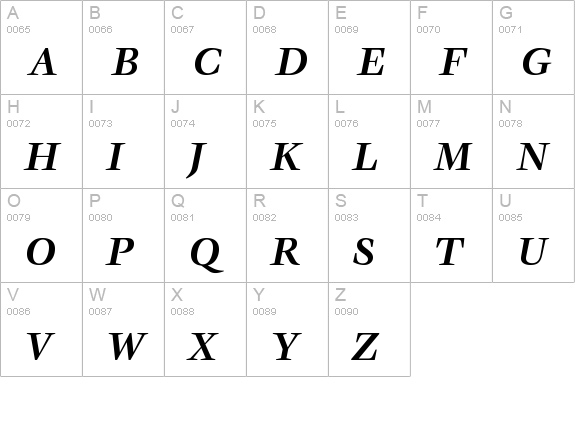
VeljovicEF-BoldItalicOsF Font Details
VeljovicEF-BoldItalicOsF is a captivating and elegant font that adds a touch of sophistication to any design project. Its bold and italicized form exudes confidence and authority, making it perfect for headlines, titles, and logos. The distinctive letterforms of VeljovicEF-BoldItalicOsF are crafted with impeccable precision, showcasing the mastery and artistry of Serbian type designer Jovica Veljovic. This font is not only visually striking but also highly versatile. It effortlessly blends classic and contemporary elements, making it suitable for a wide range of applications, from print media to digital platforms. Whether you're designing a book cover, a website, or a branding campaign, VeljovicEF-BoldItalicOsF will elevate your design and leave a lasting impression. One of the most remarkable aspects of VeljovicEF-BoldItalicOsF is that it is freely available to download at FontsMarket.com. This means that you can access this exceptional font without any cost, making it a valuable resource for designers on a budget or those who simply appreciate high-quality typefaces. The fact that it is easily accessible further adds to its appeal, allowing designers from all walks of life to incorporate this font into their projects effortlessly. With its bold and italicized form, VeljovicEF-BoldItalicOsF commands attention and creates a strong visual impact. Its refined curves and delicate details add a touch of elegance and sophistication, making it an excellent choice for projects that require a strong yet refined aesthetic. Whether you're designing a magazine layout, a poster, or a corporate identity, this font will effortlessly elevate your design and captivate your audience. In conclusion, VeljovicEF-BoldItalicOsF is a stunning font that combines elegance and versatility. Its bold and italicized form, crafted with meticulous attention to detail, adds a touch of sophistication to any design project. The fact that it is freely available to download at FontsMarket.com makes it an invaluable resource for designers seeking high-quality typefaces. Incorporate VeljovicEF-BoldItalicOsF into your next design project and experience the transformative power of this exceptional font.